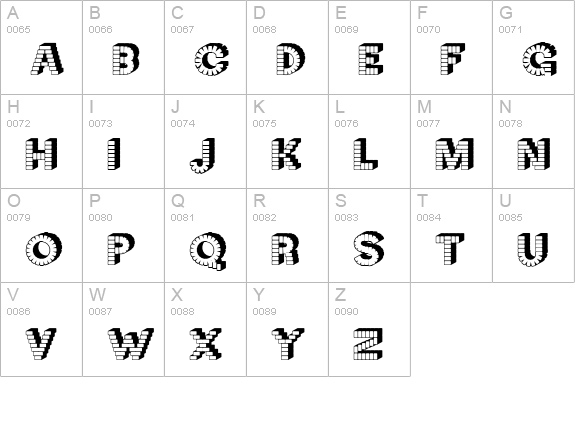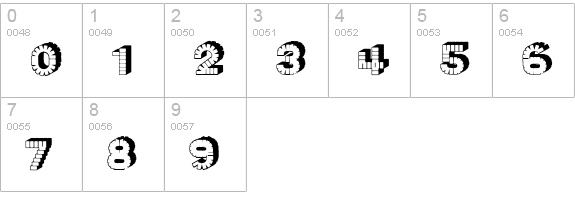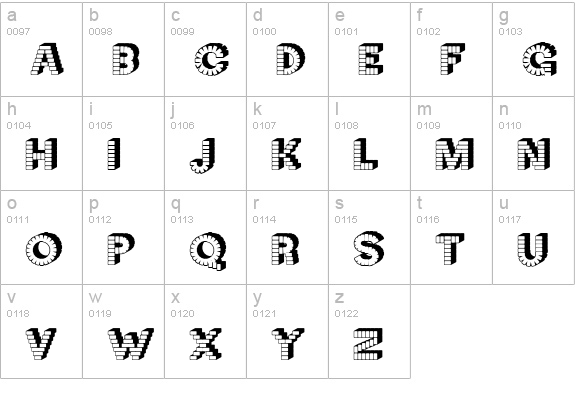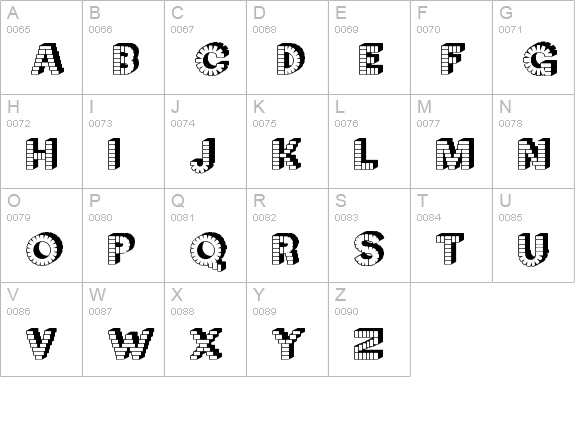
Neck Candy Font Details
Neck Candy font is a whimsical and playful typeface that will add a touch of fun to your design projects. With its quirky and unique letterforms, Neck Candy is perfect for creating eye-catching headlines, posters, and social media graphics. The font's charming and lighthearted style is sure to capture attention and bring a smile to your audience's face. Best of all, Neck Candy font is available for free download at FontsMarket.com. So go ahead and add a sweet and stylish touch to your next project with Neck Candy font!